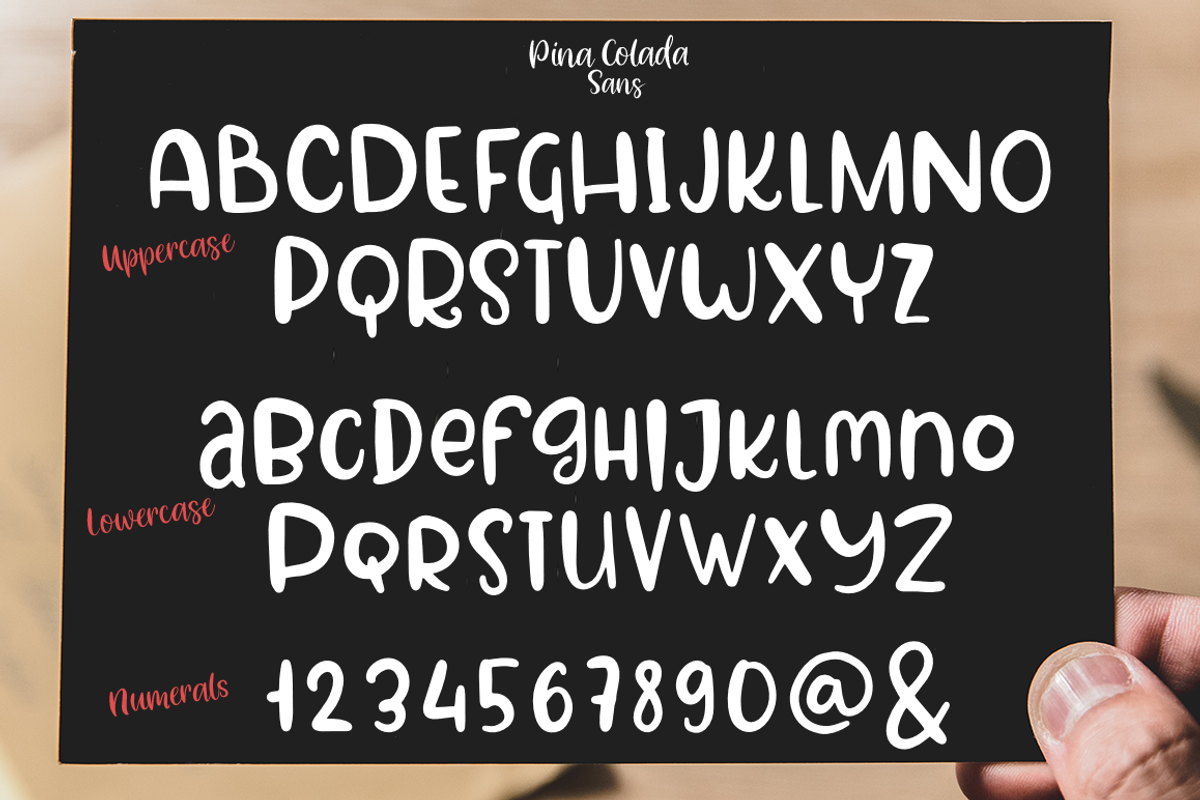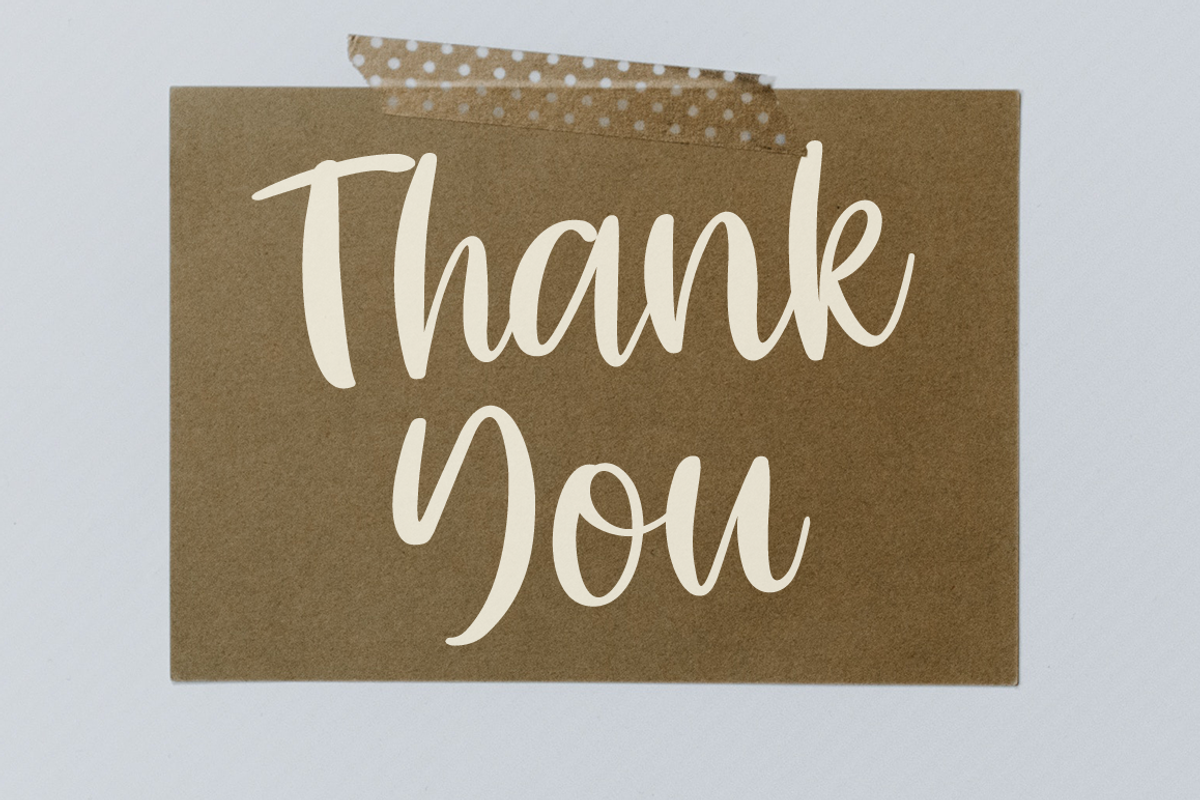
Pina Colada
Pina Colada- a new sweet handmade fonts.
This font is ideal for branding and decorate your any project, are perfect for wedding invitation or your blog. Also with their help, you can create a logo or beautiful frame for your home. Or just use for your small business, book covers, stationery, marketing, magazines and more.